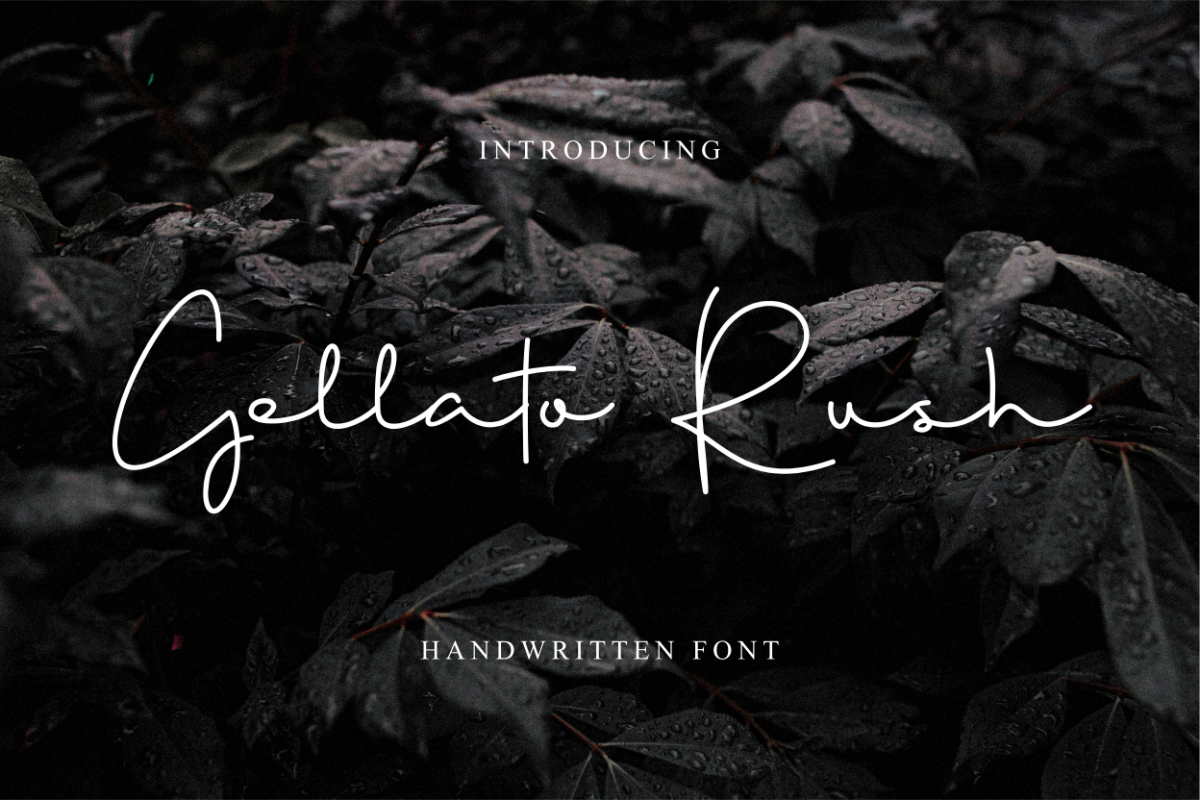
Gellato Rush "Update"
Gellato Rush Bold
Gellato Rush - a new modern & fresh script with a handwritten and signature style make this font looks elegant, natural, stylish and perfect for any awesome projects that need handwriting taste.